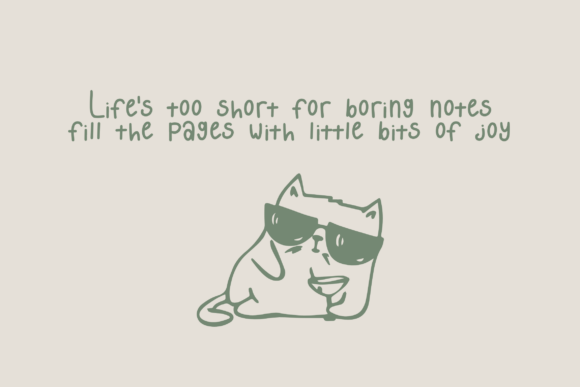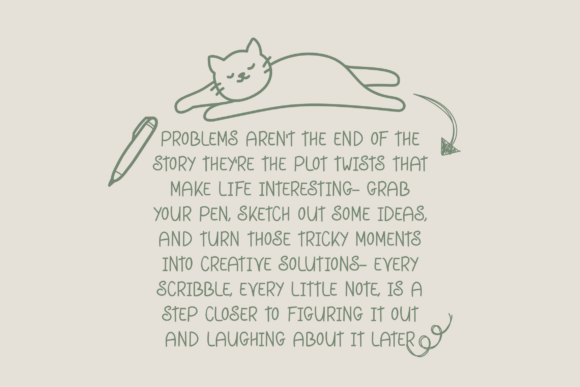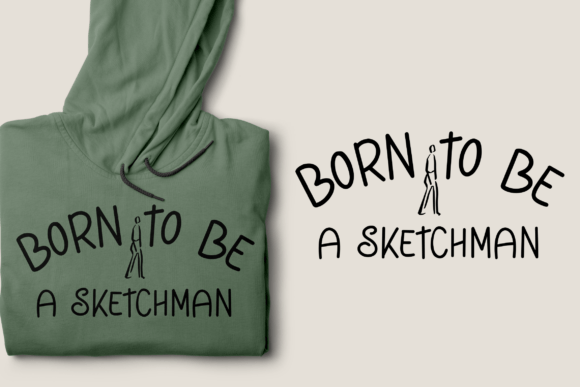
Introduction to Happy Pen Font
We’ve all been there – scribbling down a quick idea or doodling in a notebook. The feeling of putting pen to paper and watching our thoughts come to life is a rush of creativity that never gets old. And now, that same carefree spirit has been captured in the Happy Pen Font – a high-quality, free download that’s perfect for designers looking to add a touch of whimsy to their projects.
With its smooth pen strokes and bouncy rhythm, the Happy Pen Font is a design resource that’s sure to bring a smile to your face. Whether you’re working on a creative project, like a quote sticker or social media post, or simply need a font to give your digital planner a personal touch, this charming font is a valuable addition to any designer’s toolkit.
Key Features of Happy Pen Font
- High-quality, hand-drawn design for a unique and creative look in your project
- Transparent background, allowing for easy customization and versatility
- Perfect for use in design projects requiring a playful and whimsical feel, such as children’s books, greeting cards, and more
- Includes a range of characters, including uppercase and lowercase letters, numbers, and punctuation marks
Honest Review: Happy Pen Font
As a designer, I’ve had my fair share of experimenting with various fonts for my creative projects. Recently, I stumbled upon the Happy Pen Font, and I must say, it’s been a delightful discovery.
- High-quality design: The font is crisp and clean, making it perfect for both digital and print-based projects.
- Transparent background: This feature allows for seamless integration with any design element, giving you more creative control.
- Limited character set: The font only includes a basic set of characters, which might not be sufficient for more complex projects.
- No bold or italic versions: This might limit its use in certain situations where a bold or italic font is required.
Overall, I’m quite impressed with the Happy Pen Font. While it may have some limitations, its high-quality design and transparent background make it an excellent addition to any designer’s toolkit. I’d definitely recommend it for simple creative projects, and I’m looking forward to experimenting with it further.
Happy Pen Font: Unlocking Creativity for Your Next Project
Tips for Getting the Most Out of Happy Pen Font
- Experiment with different font sizes and styles to find the perfect fit for your project.
- Combine the Happy Pen Font with other design elements to create a unique visual identity.
Alternatives to Happy Pen Font
Great Vibes Font is a high-quality, handwritten font perfect for creative projects that require a touch of elegance and sophistication. It features a transparent background, making it ideal for use on dark-colored backgrounds. Great Vibes Font is a great alternative to Happy Pen Font for designers who want to add a bit of whimsy to their designs.
When to use: Wedding invitations, greeting cards, and other design elements that require a touch of romance and elegance.
Comparison: Great Vibes Font has a more refined and sophisticated feel compared to Happy Pen Font, which is more playful and casual.
Carolyna Pro Font is a modern, high-quality font that features a unique blend of elegance and playfulness. It’s perfect for designers who want to add a touch of sophistication to their creative projects without sacrificing creativity. Carolyna Pro Font is a great alternative to Happy Pen Font for designers who want a more polished and refined look.
When to use: Branding materials, business cards, and other design elements that require a touch of sophistication and elegance.
Comparison: Carolyna Pro Font has a more polished and refined feel compared to Happy Pen Font, which is more playful and casual.